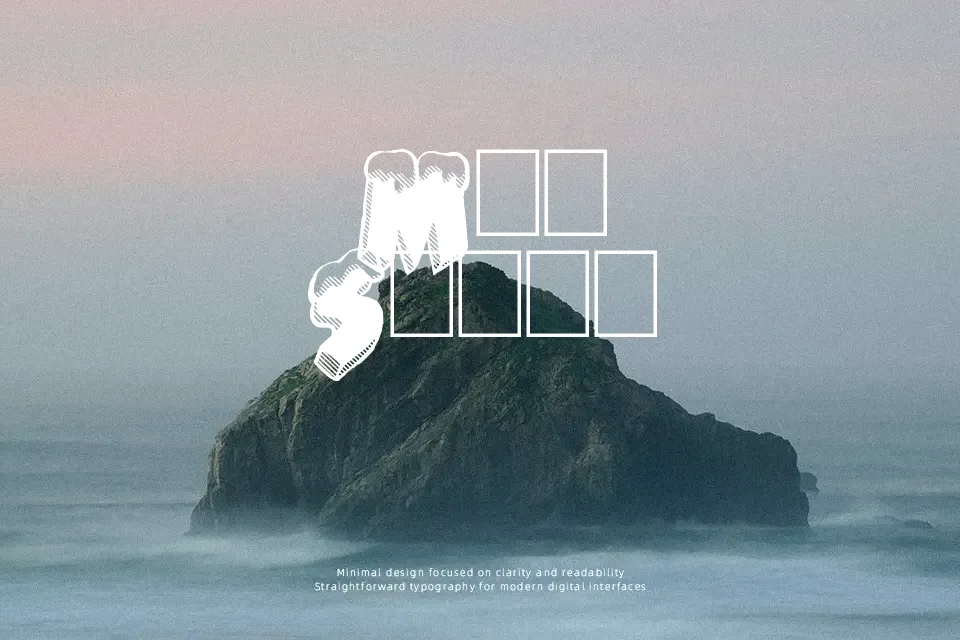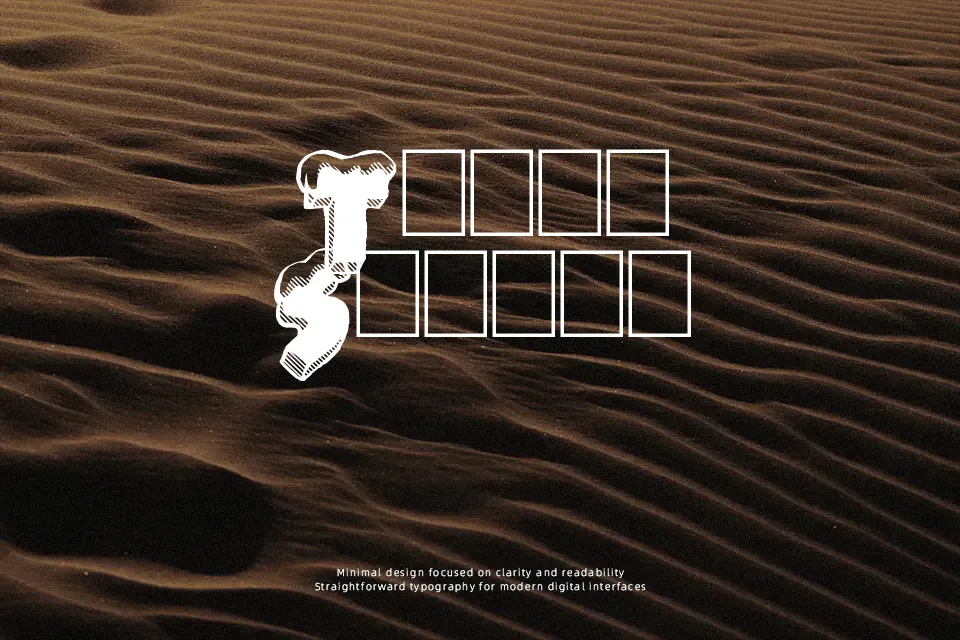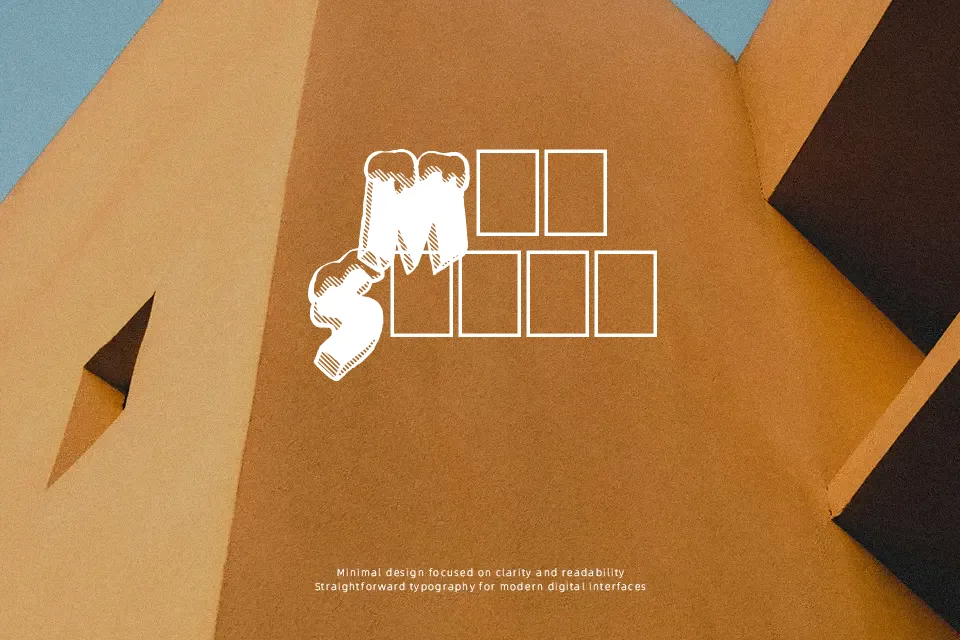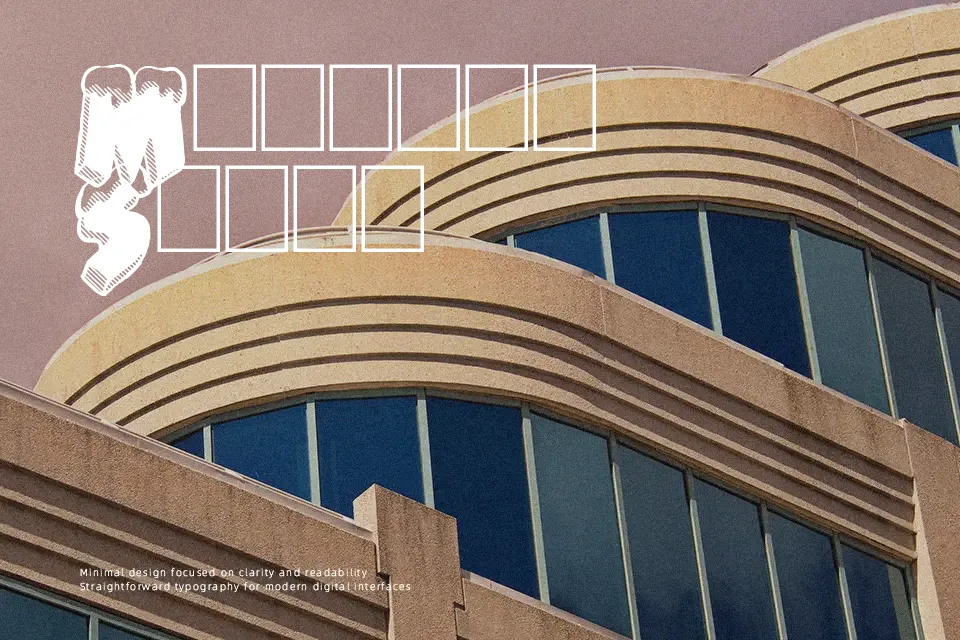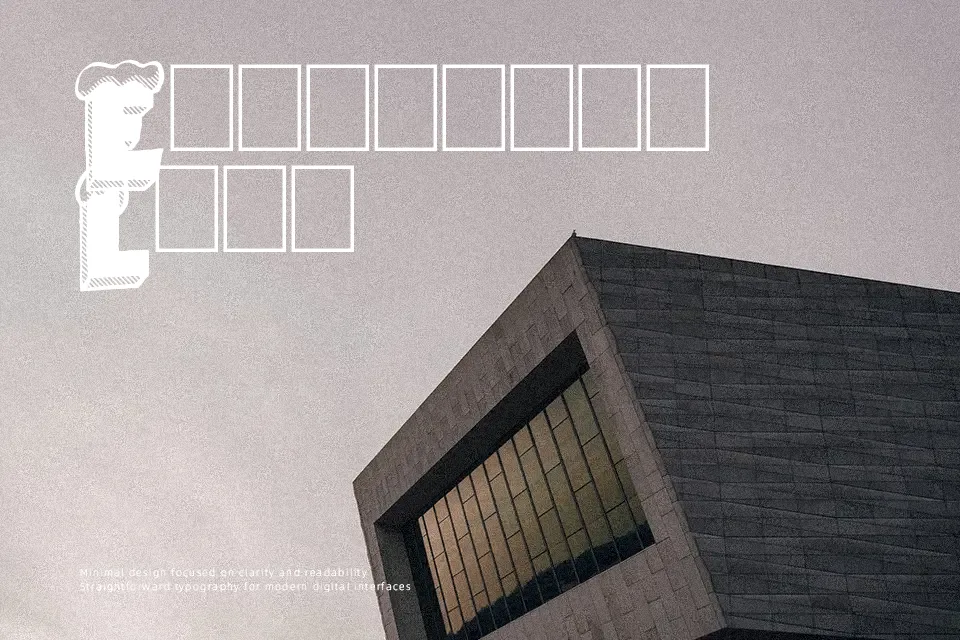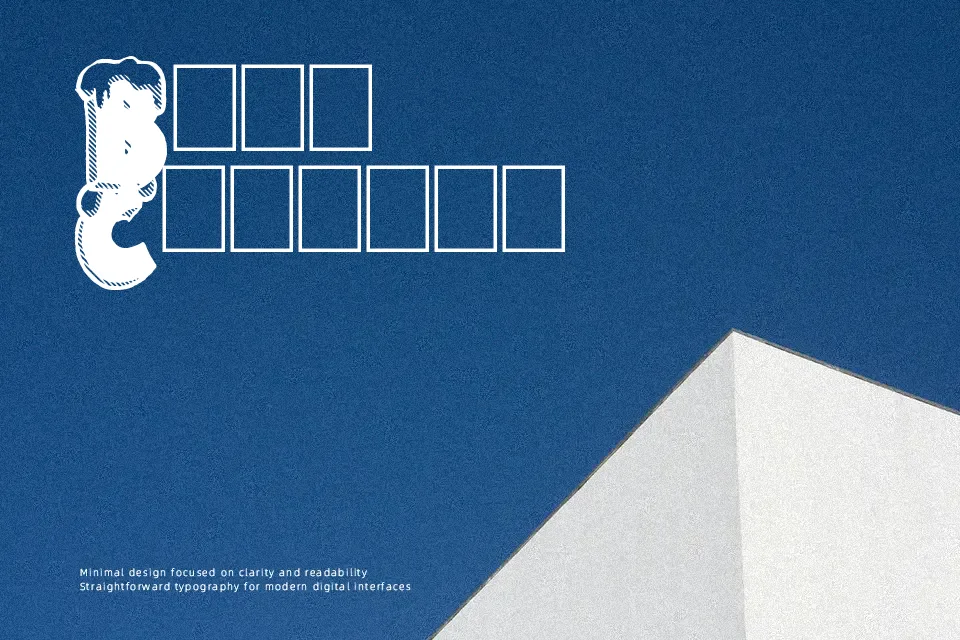
Black Santa Font
Designed by imagex
Black Santa Font by imagex delivers a distinctly frosty aesthetic, defined by its bold structure and whimsical snow-capped letterforms. The characters carry a heavy weight that gives each word a grounded presence, while the icy tops add an immediate sense of winter chill. This decorative typeface shines in large applications where the snowy details can be fully appreciated, such as holiday event posters, seasonal retail displays, and festive greeting cards. However, the textured strokes hinder legibility at smaller sizes, meaning it should be avoided for body text or dense layouts. Compared to standard holiday scripts, its blocky yet playful silhouette offers a much more casual, approachable vibe for modern winter designs.
Large holiday event posters
Seasonal retail displays
Festive greeting card headlines
Small body paragraphs
Dense editorial layouts
Formal corporate branding
Perfect for christmas, headline, and holiday, with a bold and decorative style.